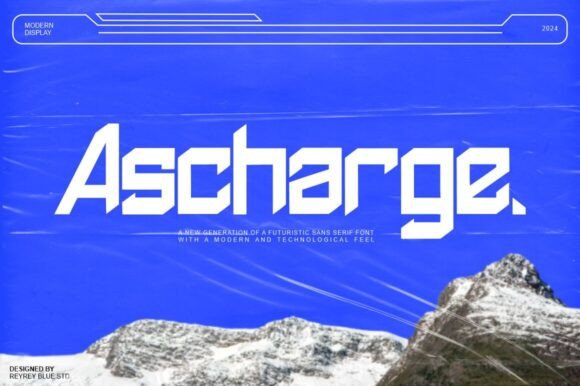
Introducing Ascharge: The Futuristic Font That Elevates Your Designs
Have you ever been in the middle of a design project, and suddenly, you realize that it’s missing that one crucial element to make it stand out? I recall a recent experience where I was working on a futuristic space-themed poster, and my design felt flat. That’s when I stumbled upon Ascharge, a modern typeface that instantly gave my project a hi-tech boost. In this article, I’ll share my journey with Ascharge, its features, and how you can make the most of it in your designs.
A Personal Encounter with Ascharge
I was working on a poster for a sci-fi movie, and I needed a font that could capture the essence of space and technology. After hours of searching, I came across Ascharge, and it was love at first sight. The sleek lines, the futuristic vibe, and the versatility of the font made it an instant favorite. I used it for the title, and it completely transformed my design. The movie poster now looked more powerful and inspiring, and I knew I had found a gem.
An Honest Review of Ascharge
What I Love About Ascharge
- ✨ Modern and Futuristic Design: Ascharge has a sleek and contemporary look that fits perfectly with technology, digital, and space galaxy themes.
- ✅ High Versatility: This font is suitable for a wide range of projects, including movies, documentaries, films, logos, posters, games, book covers, headlines, titles, and more.
- ✨ Ease of Use: Ascharge is easy to read and works well in both digital and print formats.
While Ascharge is an excellent font, there are a few things to keep in mind:
- ⚠️ Limited Serif Options: Ascharge is primarily a sans-serif font, which might limit its use in projects requiring traditional serif fonts.
- 🤔 Requires Attention to Spacing: For optimal results, you might need to adjust the spacing between letters, especially when using it for longer texts.
The Backstory of Ascharge
Ascharge was designed with the vision of creating a typeface that embodies the futuristic and hi-tech atmosphere of the digital age. Inspired by the sleek lines of spacecraft and the glow of neon lights, the designer aimed to create a font that could be both modern and timeless. The result is a versatile typeface that can elevate any project with its unique style.
Q: What themes is Ascharge best suited for?
A: Ascharge is perfect for technology, digital, space galaxy themes, movies, documentaries, films, logos, posters, games, book covers, headlines, titles, and more.
Q: Is Ascharge suitable for body text?
A: While Ascharge is primarily designed for headlines and titles, it can be used for body text in digital formats. However, for longer texts, you might find it more comfortable to read in larger sizes or use a complementary font for body text.
In conclusion, Ascharge is a powerful and inspiring font that can elevate your designs, especially those with a futuristic or technological theme. Its modern look, versatility, and ease of use make it an excellent choice for designers, crafters, and creative hobbyists. By understanding its features and how to use it across different platforms, you can unlock its full potential and make your projects stand out.